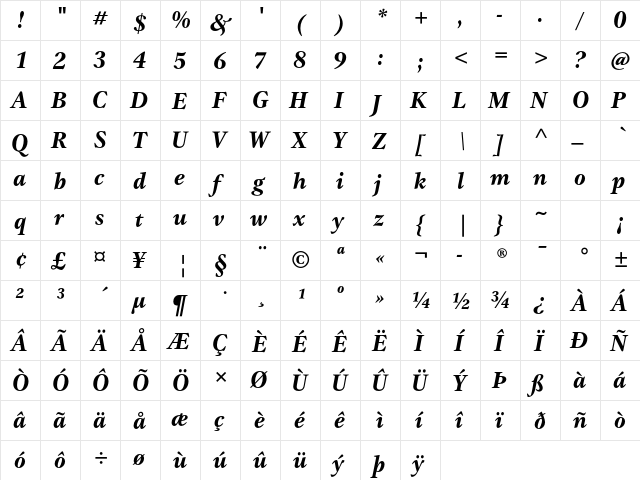
Gamma ITC Std Bold Italic
| Designer | Jovica Veljovic |
Design Context for Gamma ITC Std Typeface
Gamma ITC Std offers clean, dependable letterforms without strong stylistic allegiance, making it a practical choice for designers who need flexibility. Its italic angle brings a sense of urgency and motion to the letterforms. Its bold stroke weight gives it real presence on the page.
Pro Tip: Use Gamma ITC Std for emphasis, pull quotes, and subheadings where its slanted energy can add rhythm to the layout.